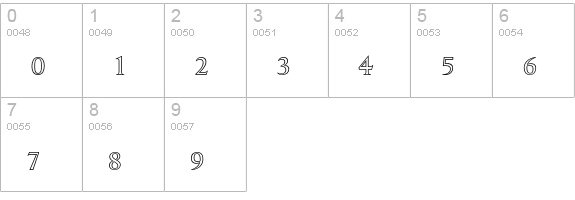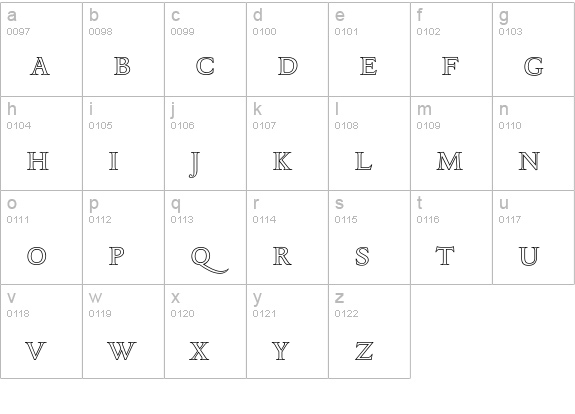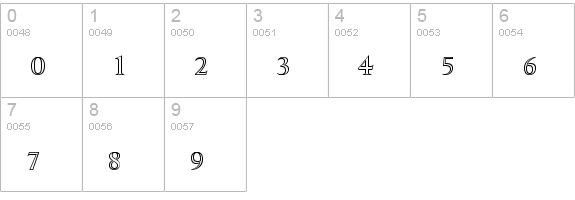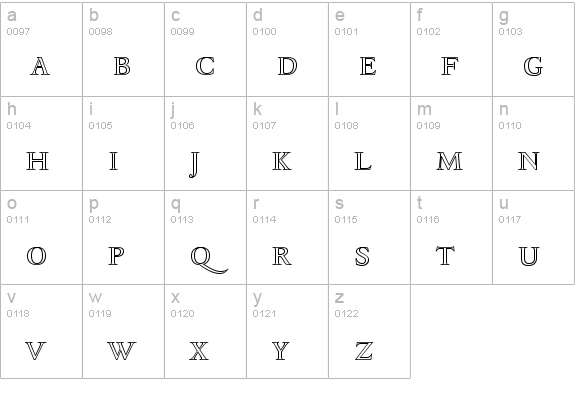
DTLElzevirTCapsOutline Font Details
DTLElzevirTCapsOutline font is a stylish and modern typeface that exudes sophistication and elegance. Its sleek lines and sharp edges make it perfect for a wide range of design projects, from branding to editorial layouts. This font is ideal for creating eye-catching headlines or adding a touch of refinement to any piece of text. The best part about DTLElzevirTCapsOutline font is that it is completely free to download. You can easily access this font at FontsMarket.com, where you can find a vast selection of high-quality fonts for all your design needs. Don't miss out on the opportunity to enhance your projects with this stunning font that is both versatile and visually appealing. Download DTLElzevirTCapsOutline font today and elevate your designs to the next level.